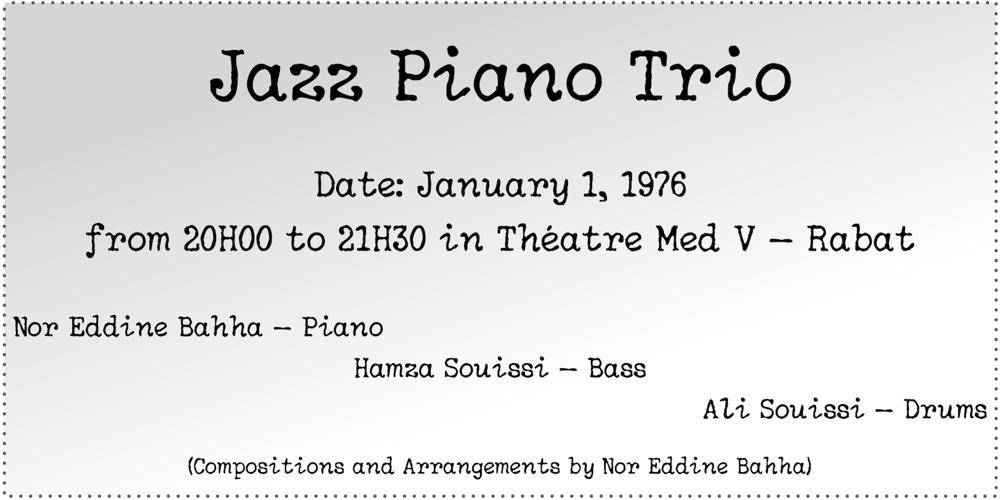
NorB Type Writer Roughen
NorB Type Writer Roughen font
NorB Type Writer Roughen Font Family was designed by Nor Eddine Bahha and published by NorFonts. NorB Type Writer Roughen contains 6 styles and family package options. NorB TypeWriter Roughen is the roughen version of my NorB TypeWriter typeface witch’s my emulation of the IBM Selectric ‘Light Italic’ ball witch was used by my grand-brother for his correspondance during the 70’s and 80’s. It’s however a slanted mono-spaced looking typewriter font. You may want to use this font with any word processing program for text and display use, print and web projects, apps and ePub, comic books, graphic identities, branding, editorial, advertising, scrapbooking, cards and invitations and any casual lettering purpose… or even just for fun! NorB TypeWriter Roughen features 677 glyphs, OpenType features and comes in 6 weights each with their matching italics and in a Light, Normal and Bold version.